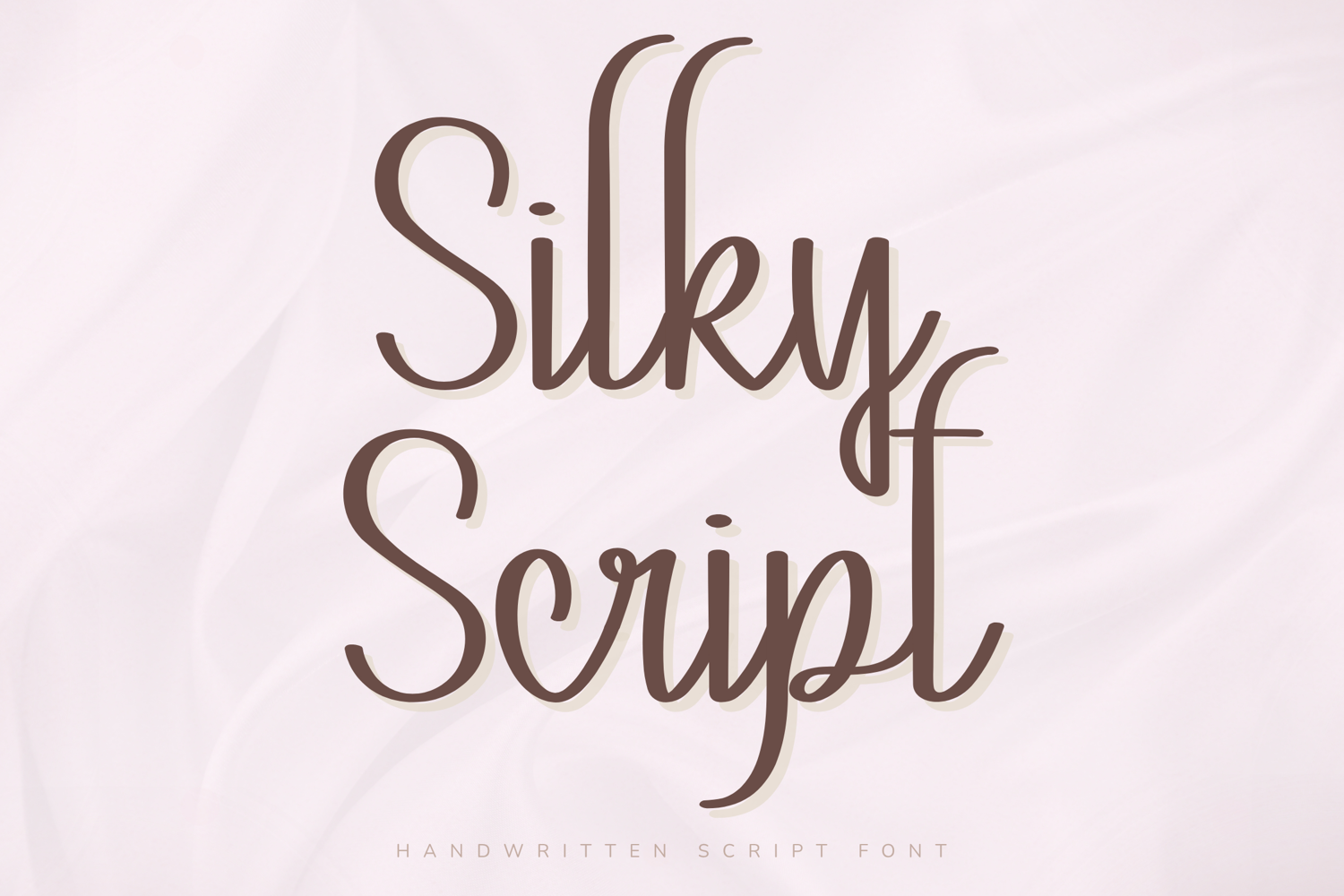
Silky Script - Handwritten Script Font
Silky Script – Handwritten Script Font
Silky Script is a graceful handwritten script font designed with tall flowing strokes, elegant curves, and a soft feminine aesthetic. Inspired by silky smooth handwriting and modern boutique branding, this font creates a refined and luxurious handwritten feel while remaining playful and approachable.
Its slim vertical structure and smooth looping details make it perfect for beauty branding, wedding stationery, social media designs, planner projects, Cricut crafts, and stylish feminine products.
Key Features:
Elegant handwritten script style
Tall and graceful letterforms
Smooth flowing connections
Uppercase and lowercase letters
Numbers and punctuation
Feminine and modern aesthetic
Perfect For:
Beauty branding
Wedding invitations
Feminine logos
Social media graphics
Planner stickers
Cricut crafts
Boutique packaging
Greeting cards
Fashion branding
Best Use Cases:
Wedding branding
Beauty packaging
Instagram templates
Cricut writing projects
Fashion labels
Feminine business logos
Brand Mood:
Cute
Romantic
Playful
Feminine
Sweet
Cheerful
Design Style:
Silky Script combines thin elegant movement with soft handwritten curves to create a font that feels delicate, premium, and stylish. The tall handwritten strokes help the font stand out beautifully in logos and branding while keeping a soft romantic atmosphere.